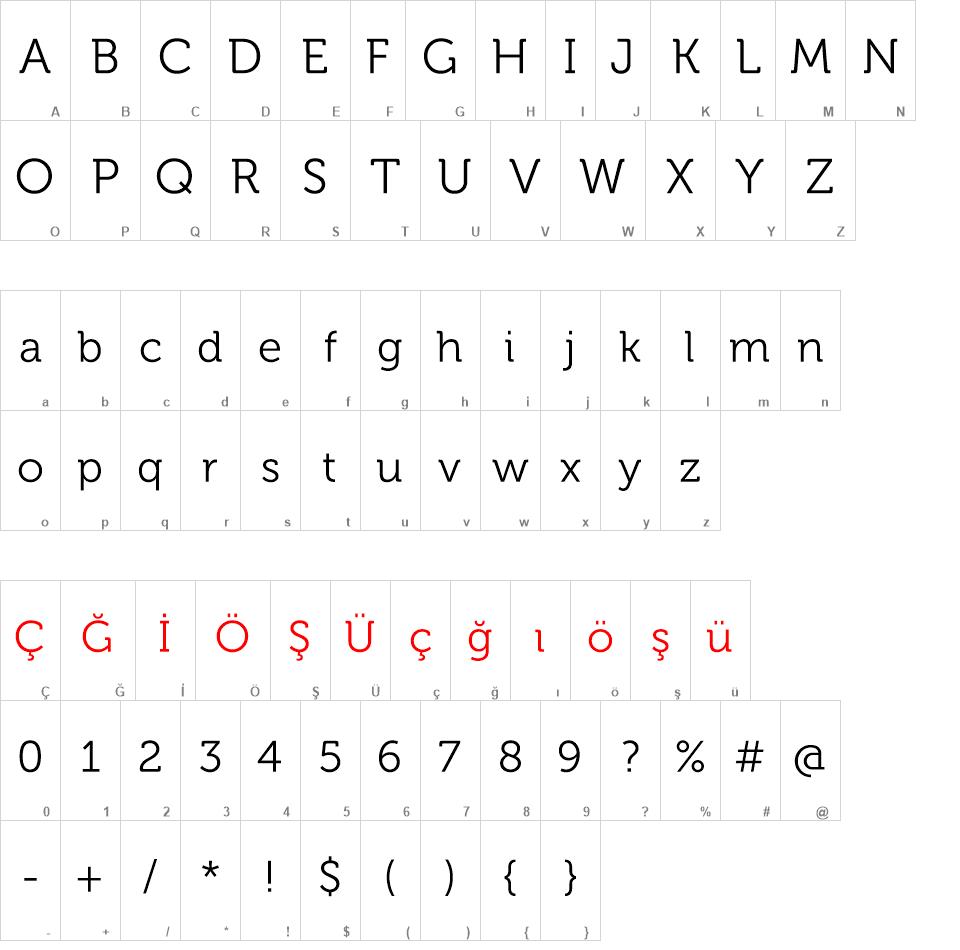
Museo Font Google
It is a sturdy, low contrast, geometric, highly legible sans serif typeface. It is based on museo typeface, an early work from the same creator. Museo slab is a great serif font that is elegant but friendly.
There is also a condensed, a rounded and a display family available. This typeface contains an elegant appearance that is perfect for use in magazines and directories. Thanks to exljbris font foundry for the free version.
It Is Based On Museo Typeface, An Early Work From The Same Creator.